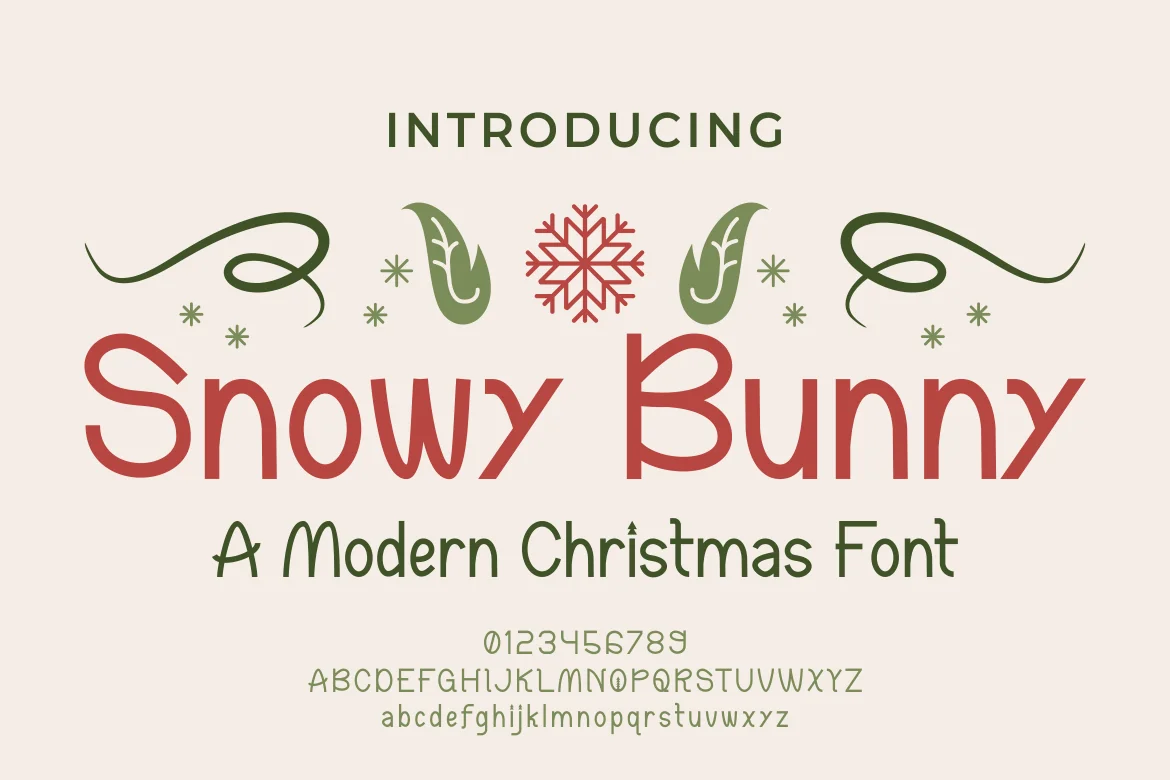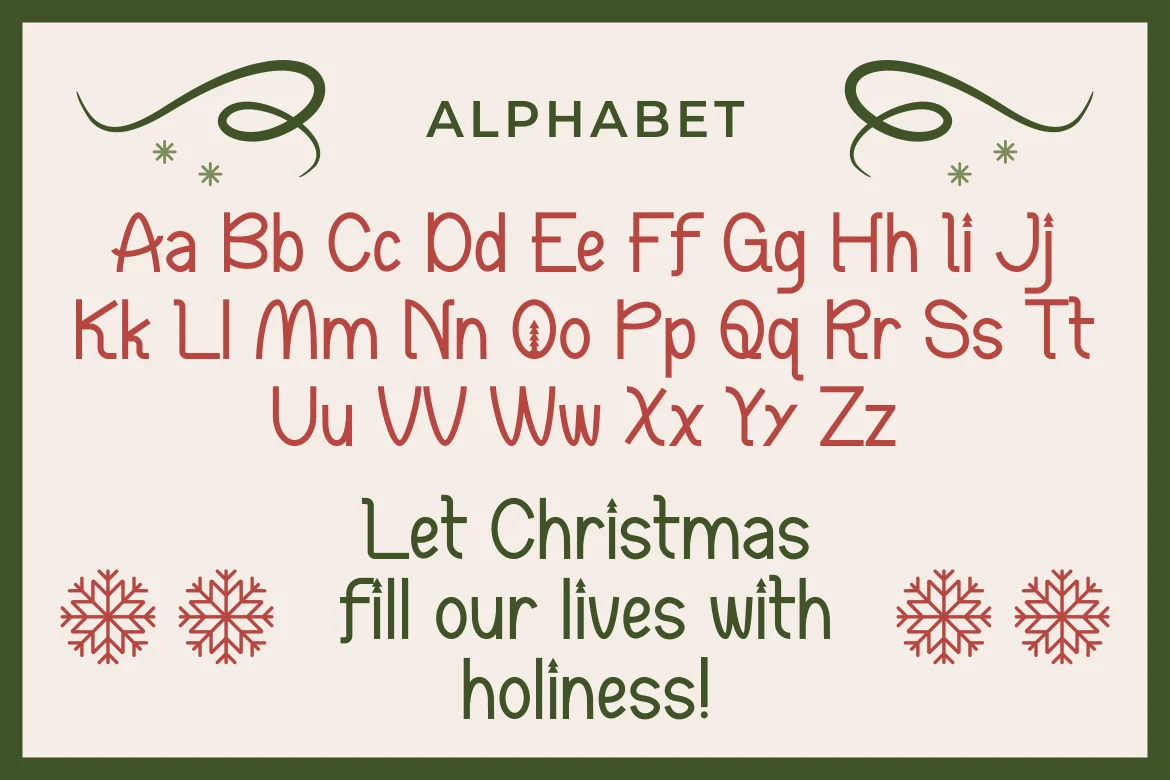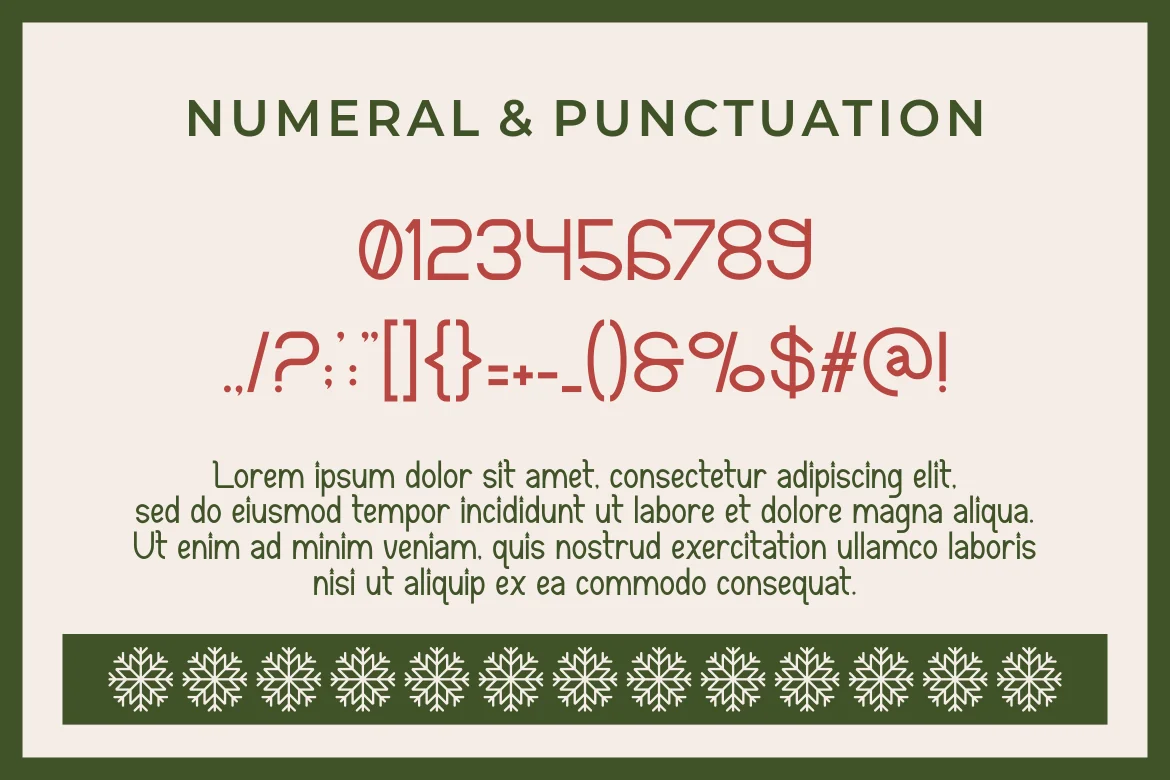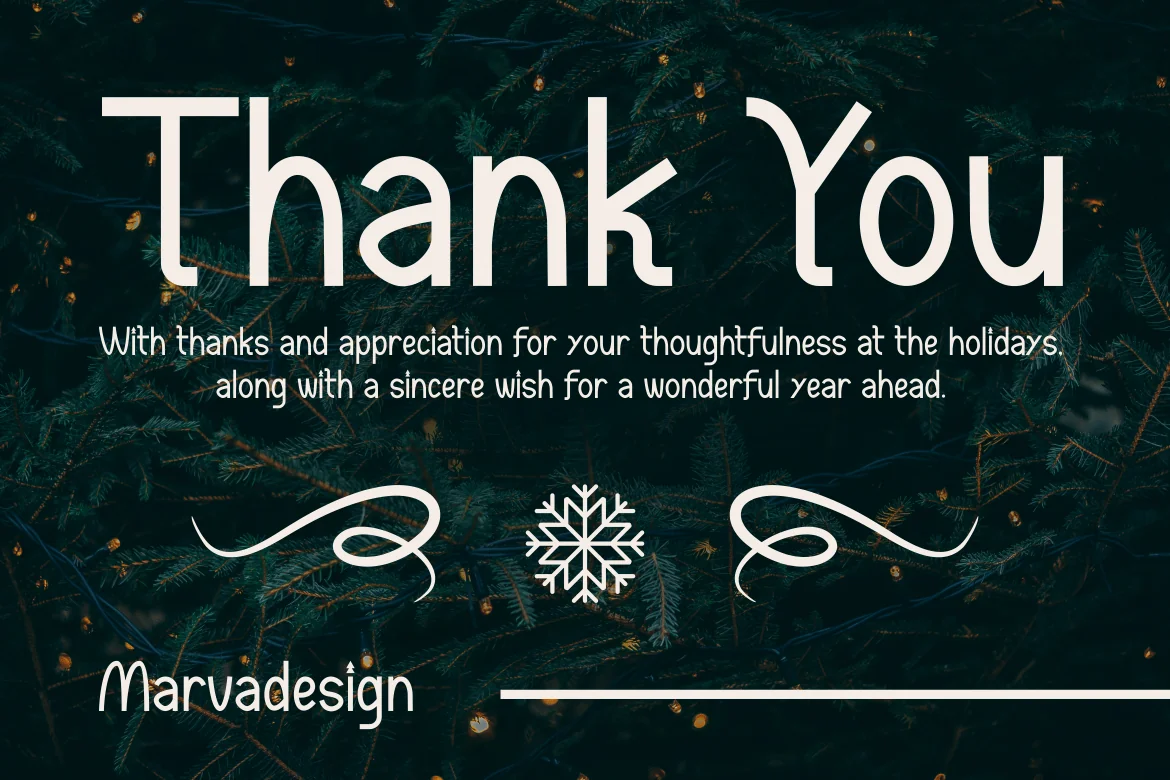
Snowy Bunny – A Modern Christmas Font
Introducing our new product Snowy Bunny Font – Modern Font
Snowy Bunny Font** – Modern Font is a bold and authentic display font. The font is suitable for any branding project like logo, t-shirt printing, Product and many more. outstanding in a wide range of contexts.